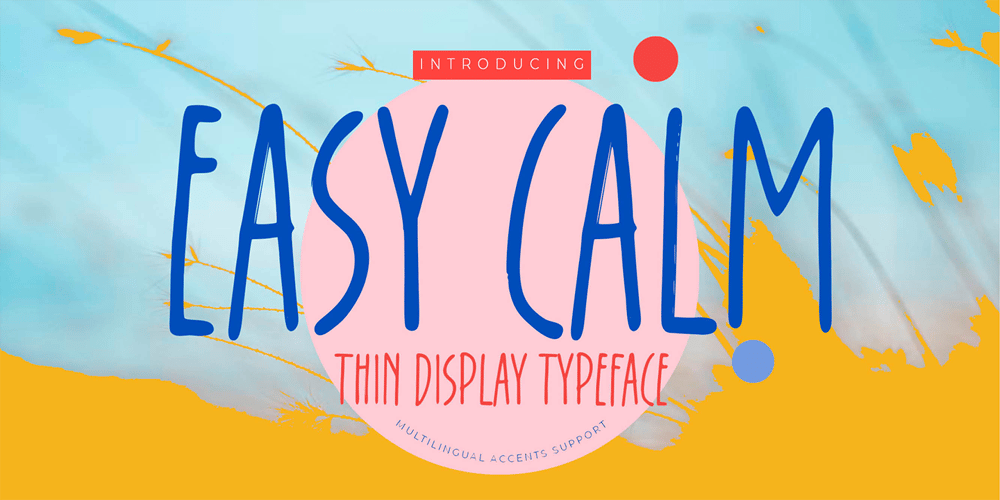
Easy Calm Font Family was designed by Abdul Malik Wisnu, Anang Fibriyanto and published by Gassstype. Easy Calm contains 1 styles and family package options. Hello Everyone, introduce our new product Font Easy Calm is a Thin Display Typeface.This is a Textured Natural Style and classy style with a clear style and dramatic movement.This font Easy Calm is great for your next creative project such as logos, printed quotes, invitations, cards, product packaging, headers, Logotype, Letterhead, Poster, Design this font is great for your creative projects such as watermark on photography, and perfect for logos & branding, invitation,advertisements.